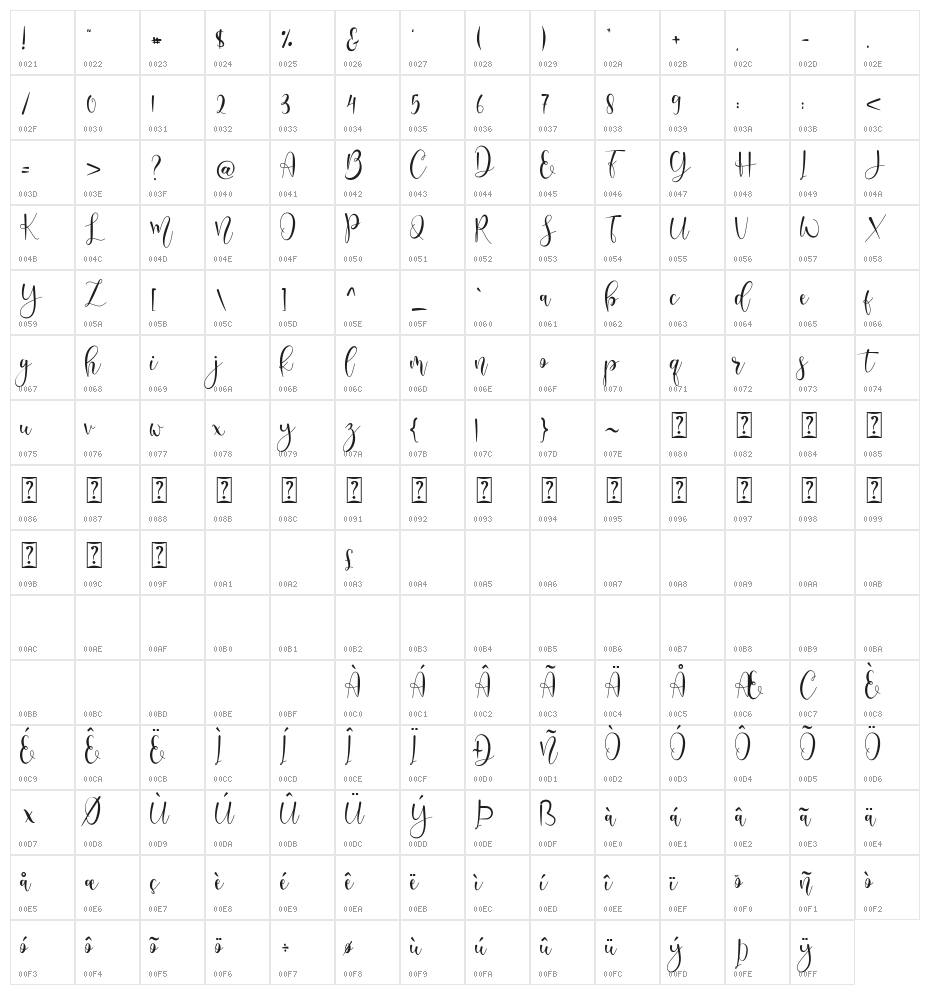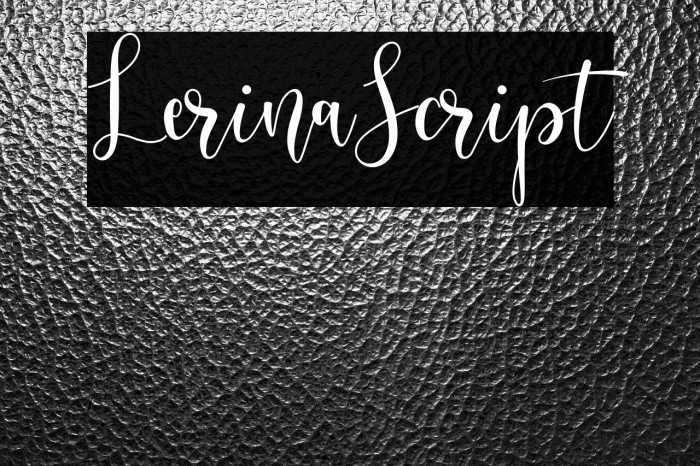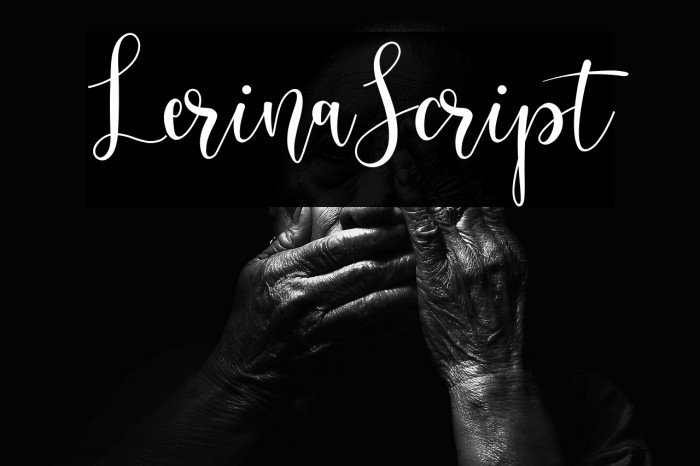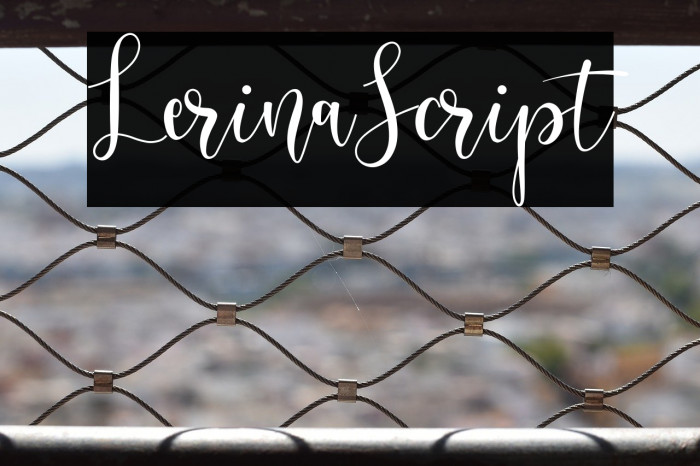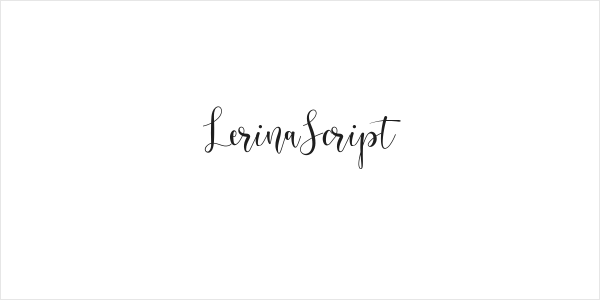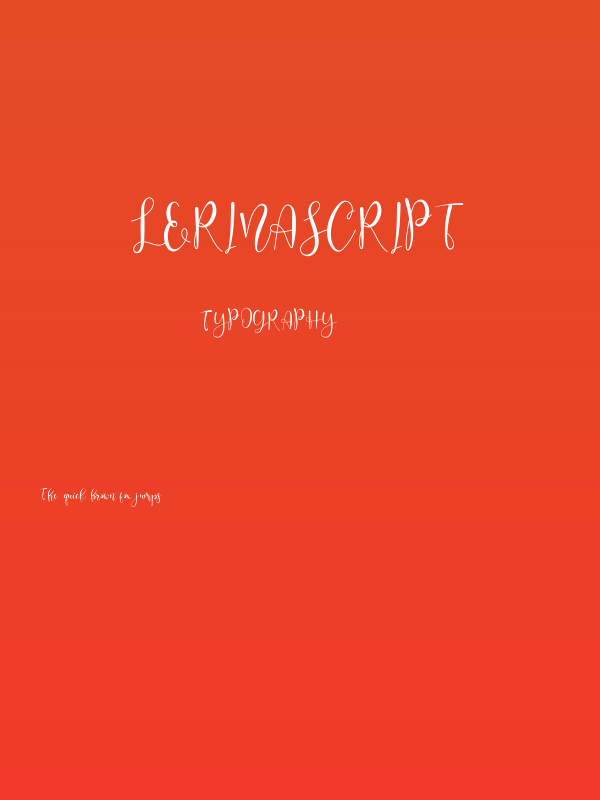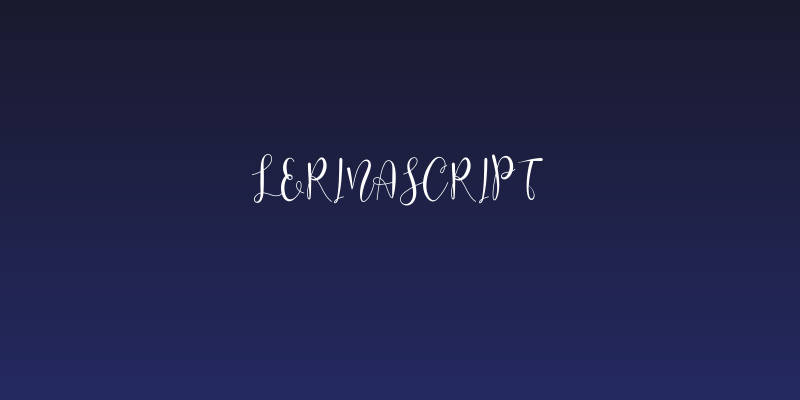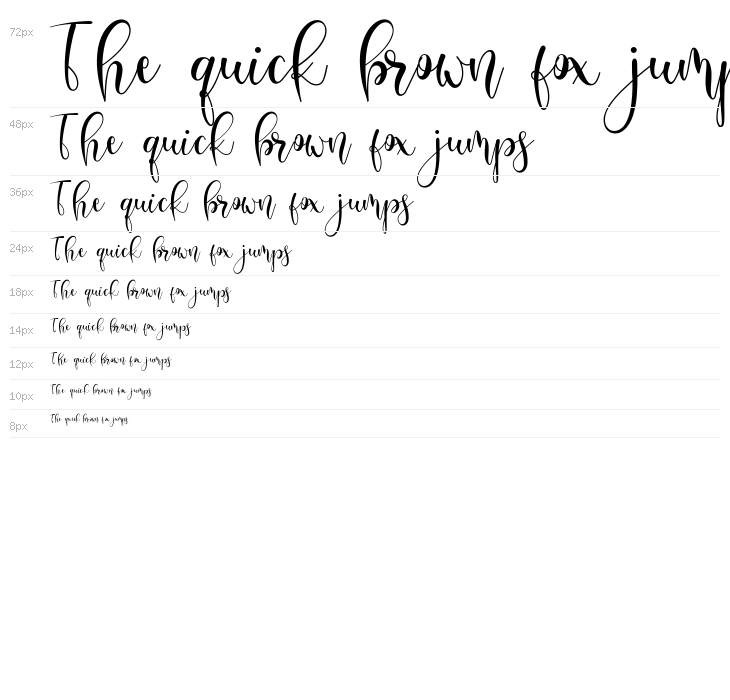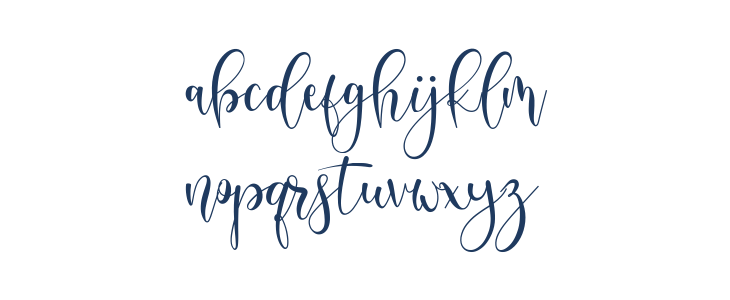
LerinaScript Font
LerinaScript Description
This font exudes elegance and fluidity, characterized by its flowing script style that mimics the natural movement of handwriting. The uppercase letters are ornate, with flourishes that add a touch of sophistication, while the lowercase letters maintain a consistent, smooth flow. The numerals are designed to complement the letters, maintaining the same graceful curves. Special characters are thoughtfully integrated, ensuring they match the overall aesthetic. This font is perfect for projects that require a personal, artistic touch, such as invitations, greeting cards, or branding materials.
| Overall Style | Elegant, Artistic |
| Use Case | Logos, Invitations, Greeting Cards |
| Proposed Projects | Ideal for wedding invitations, greeting cards, logos, and branding materials. |